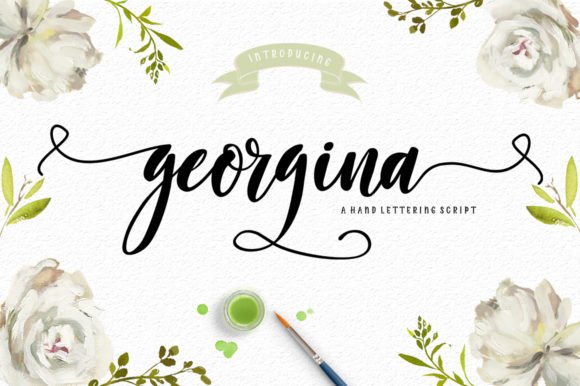
Unleashing Your Creativity: The Power of the Georgina Script Font
Have you ever sat at your desk, staring blankly at a blank page, waiting for inspiration to strike? It’s a moment we’ve all experienced at some point, and it’s often the spark that ignites a creative fire. For designers, finding the right font can be the key to unlocking that spark and bringing their vision to life. And when it comes to modern script fonts, one name stands out: the Georgina Script Font.
This trendy and feminine font is more than just a pretty face – it’s a versatile tool that can elevate your designs and leave a lasting impression. From wedding invitations to business cards, the Georgina Script Font is perfect for any project that requires a touch of elegance and sophistication. And for designers, its irregular baseline and modern aesthetic make it a valuable addition to any font library.
Georgina Script Font Key Features
- Font Style: Script, elegant, and cursive font ideal for invitations, wedding stationery, and other creative projects.
- Language Support: Supports a wide range of languages, including Latin, Cyrillic, and Greek alphabets, making it suitable for international use.
- Unique Characteristics: Features connected letters, swashes, and flourishes, adding a touch of elegance and sophistication to any design.
Georgina Script Font Review
When I first laid eyes on the Georgina Script Font, I knew I had to dive in and give it a try. Here’s my honest take on this beautiful script font.
- Georgina Script is incredibly elegant, making it perfect for wedding invitations, stationery, or any design that needs a touch of sophistication.
- The font is highly customizable, with a wide range of OpenType features that allow for precise control over ligatures, swashes, and other design elements.
- The font is also highly legible, even at small sizes, making it perfect for body text or headlines.
- The font may not be the best choice for digital screens, as it can appear slightly fuzzy or pixelated at certain sizes.
- Some users may find the font’s ligatures and swashes overwhelming or difficult to use, especially for those without experience with script fonts.
Overall, I’m thoroughly impressed with the Georgina Script Font. While it may have some limitations, its elegance, customizability, and legibility make it a valuable addition to any designer’s toolkit. If you’re looking for a high-end script font for your next project, Georgina Script is definitely worth considering.
Use Georgina Script font sparingly to create a sense of elegance and sophistication. Pair it with simple, clean fonts to avoid visual clutter. Experiment with different font sizes and colors to create a unique look.
Georgina Script font is ideal for creating:
• Elegant titles and headings
• Custom typography and logos
• Branding materials and marketing materials
• Quotes and inspirational graphics